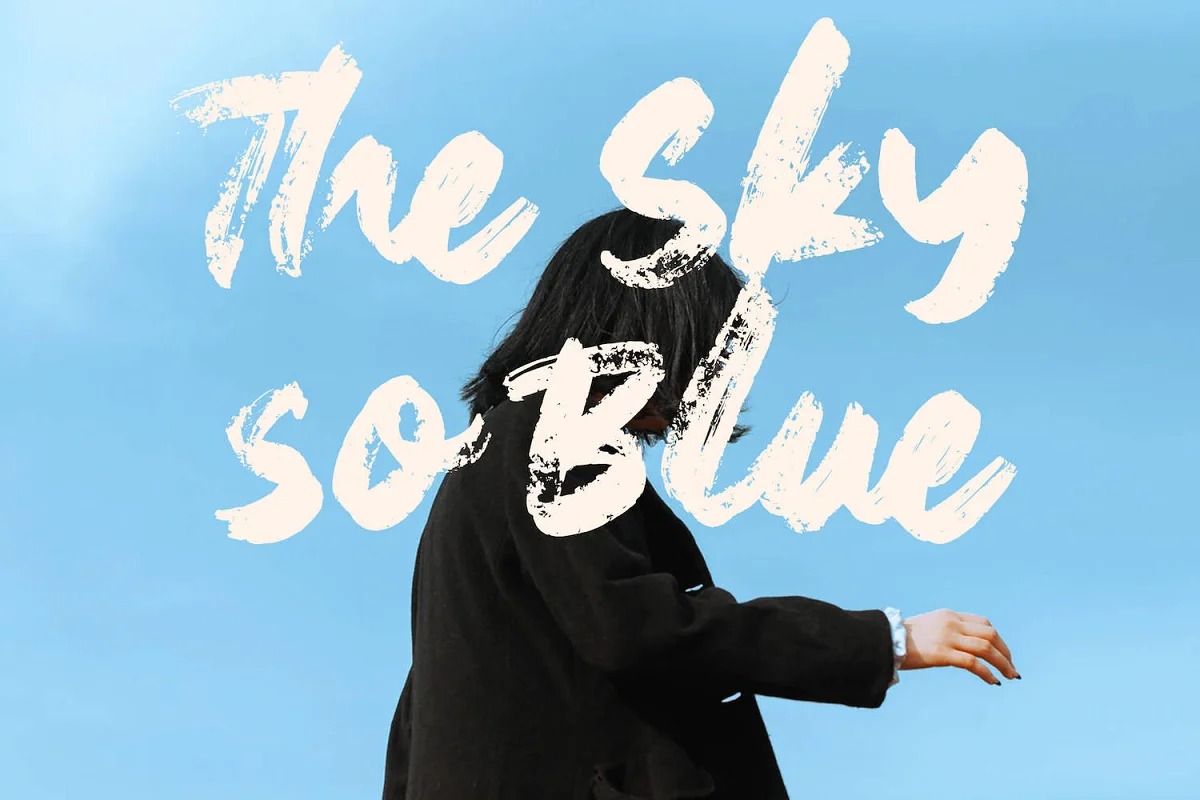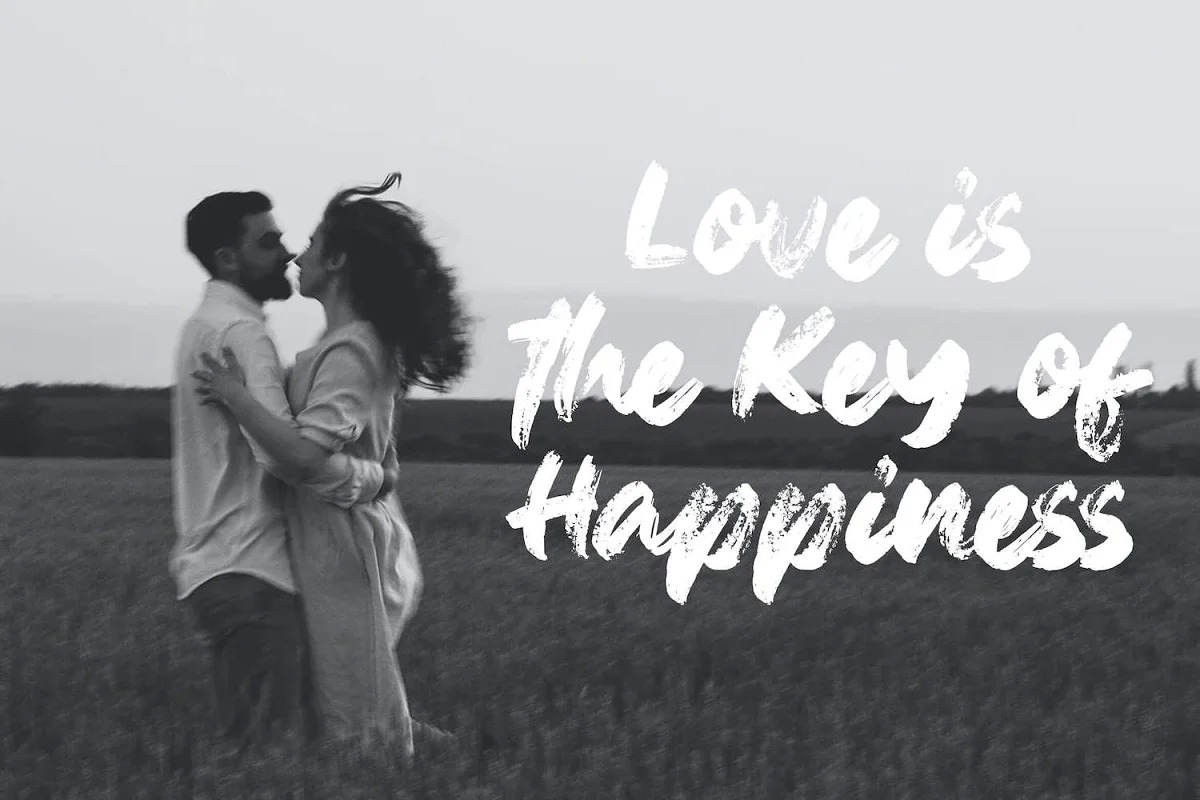
Janji Dilan Brush Font
This is a sharp and powerful brush typeface with quick-drying strokes. It’s designed and shared by StringLabs. Shelldon is perfect for branding projects, homeware designs, product packaging – or simply as a stylish text overlay to any background image.